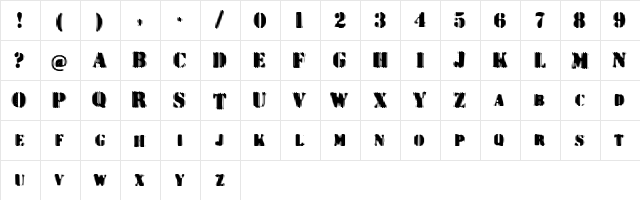
Dr.Enoksen Yeah, what?
Design Context for Dr.Enoksen Typeface
Dr.Enoksen is a composed and adaptable typeface that performs quietly and consistently across a wide range of design contexts.